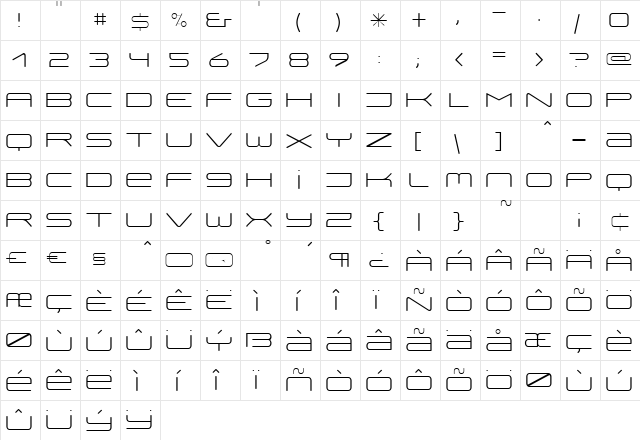
Rung Thin
| Style | Thin |
Design Context for Rung Typeface
Rung offers clean, dependable letterforms without strong stylistic allegiance, making it a practical choice for designers who need flexibility. The delicate stroke weight brings airiness and refinement to layouts.
Pro Tip: Use Rung in both headline and body roles to test its range before committing to a single application.